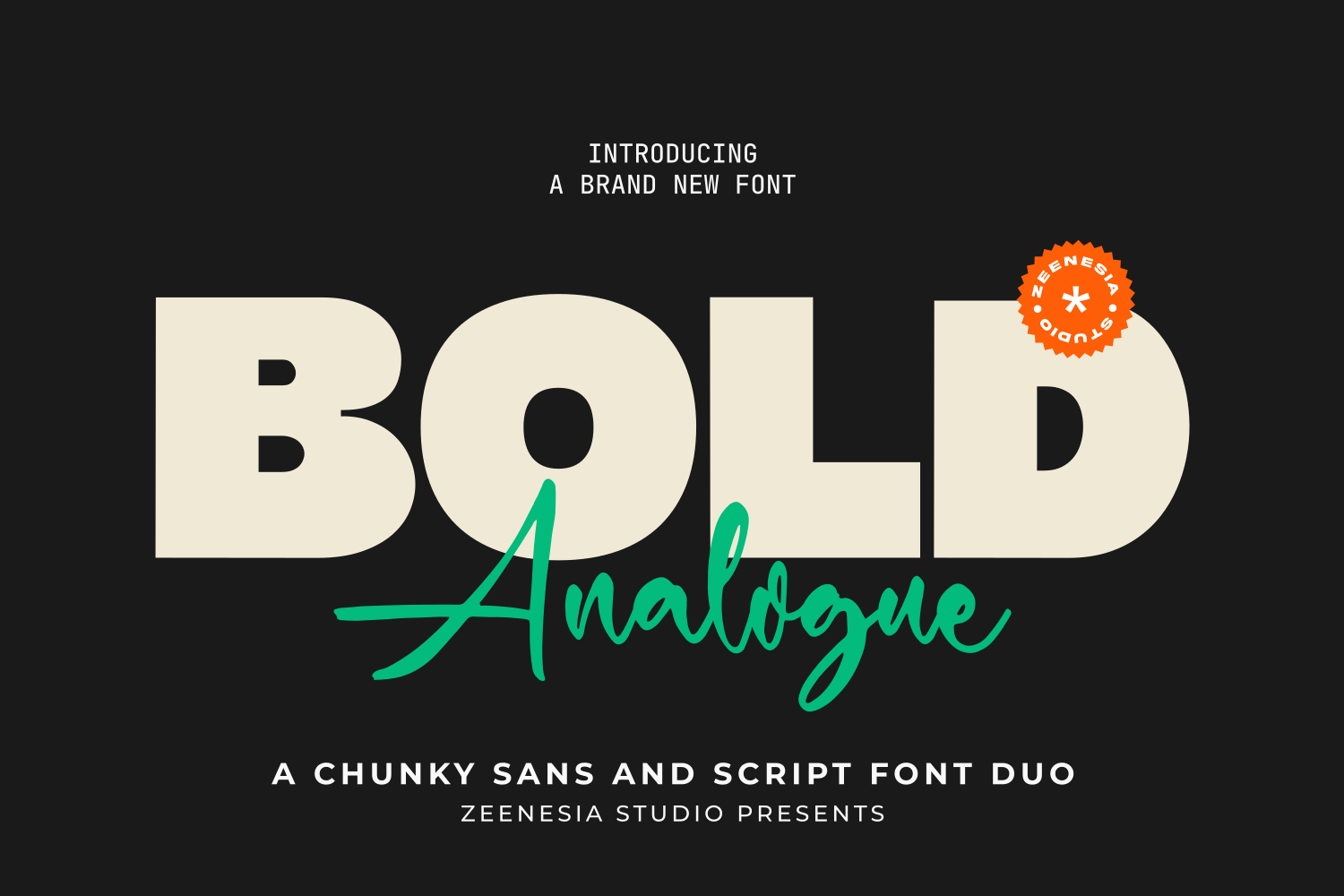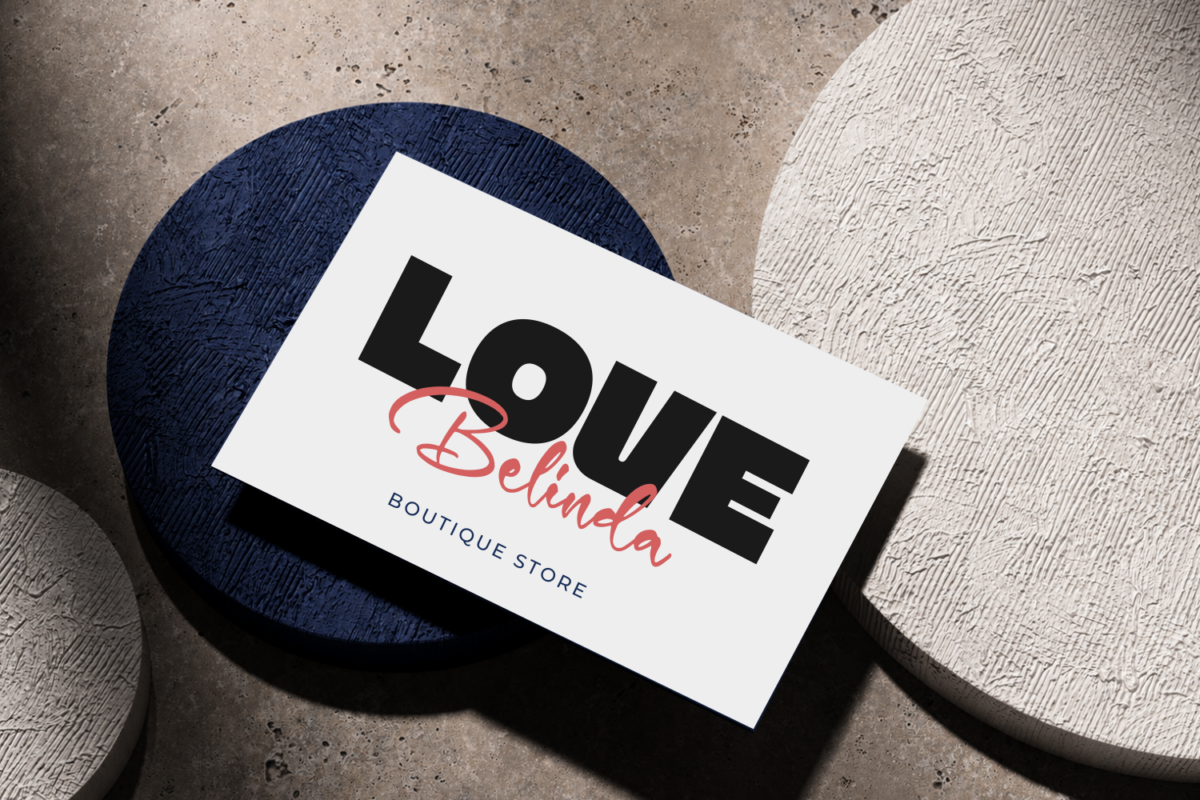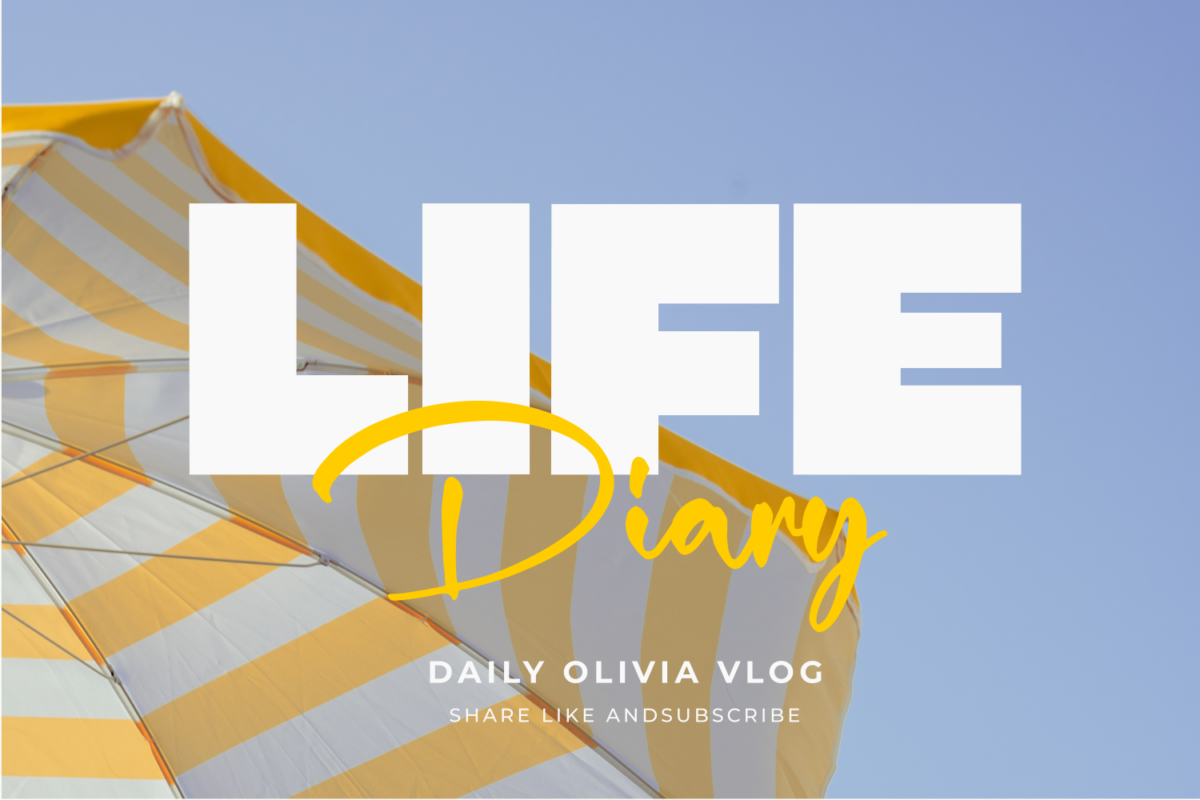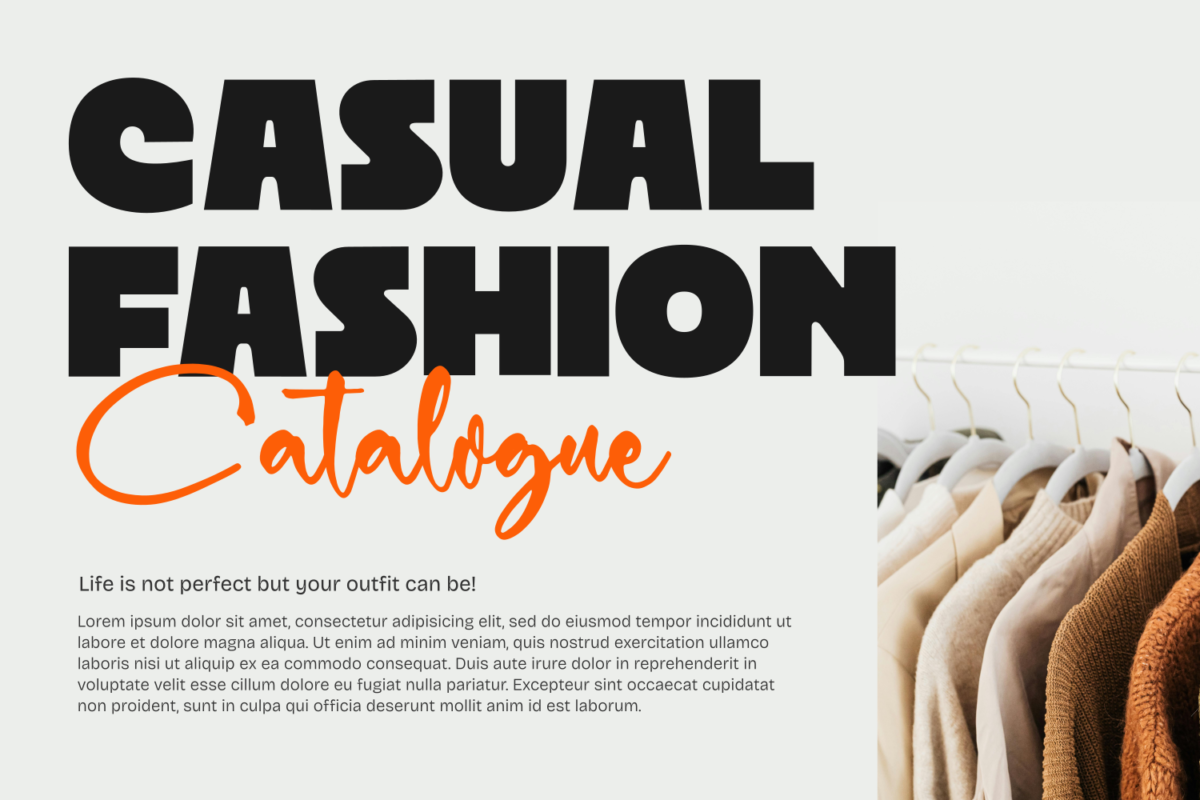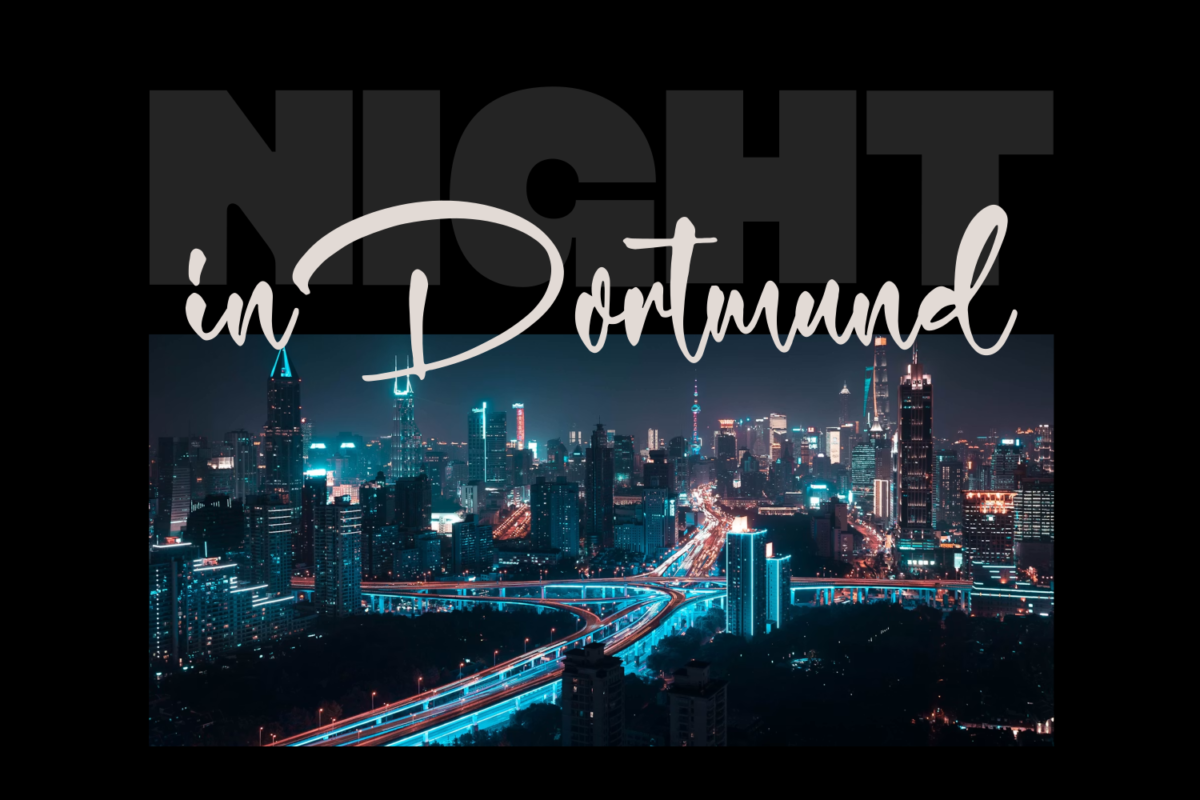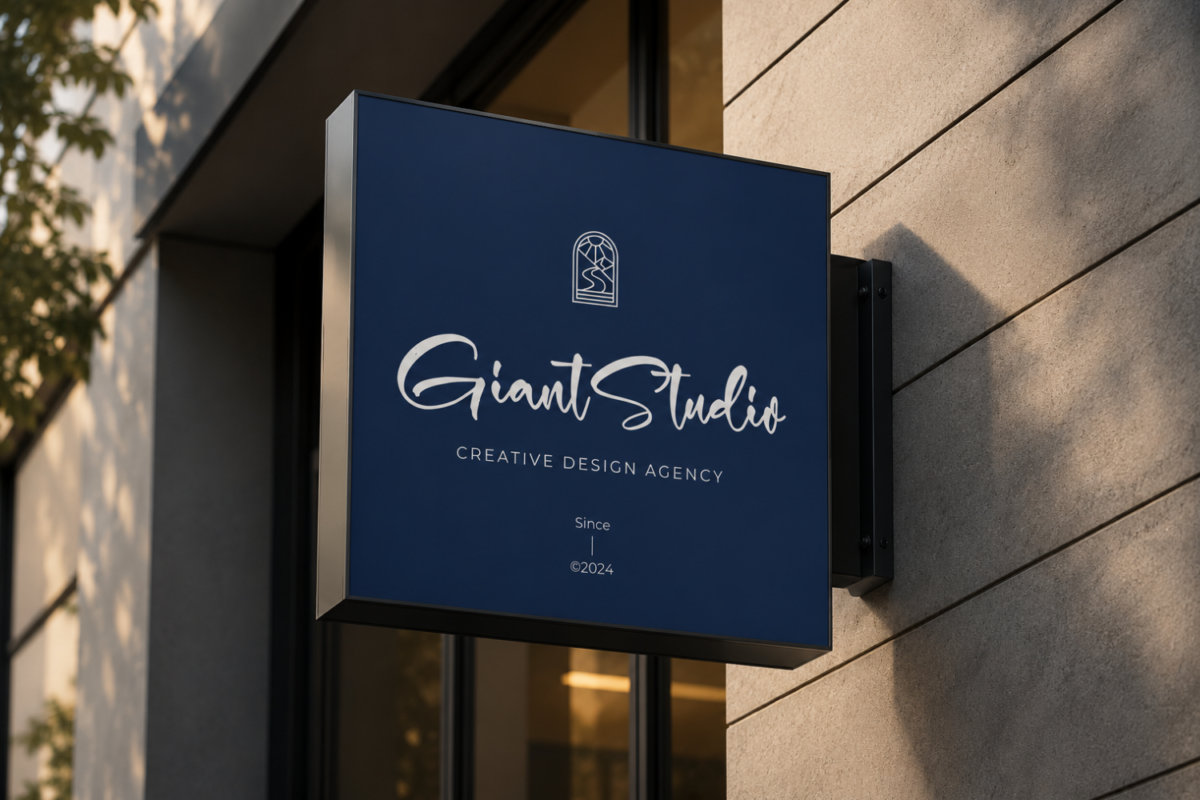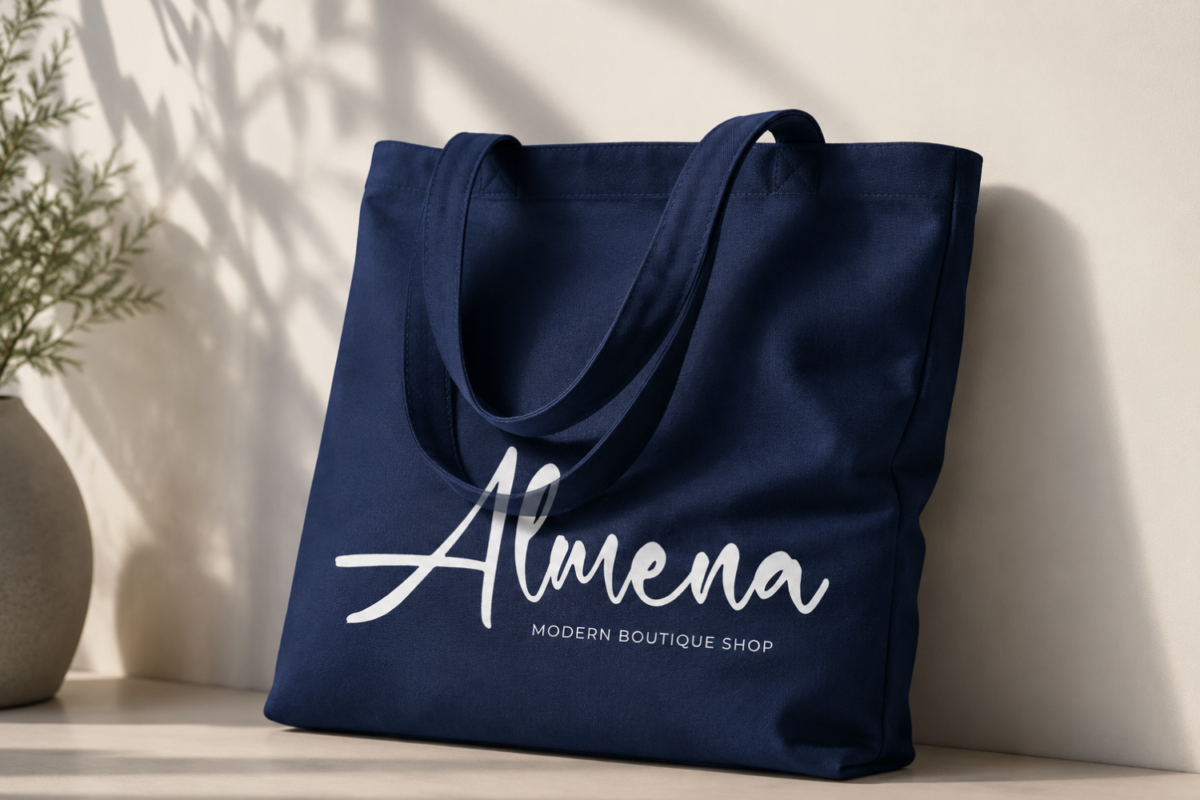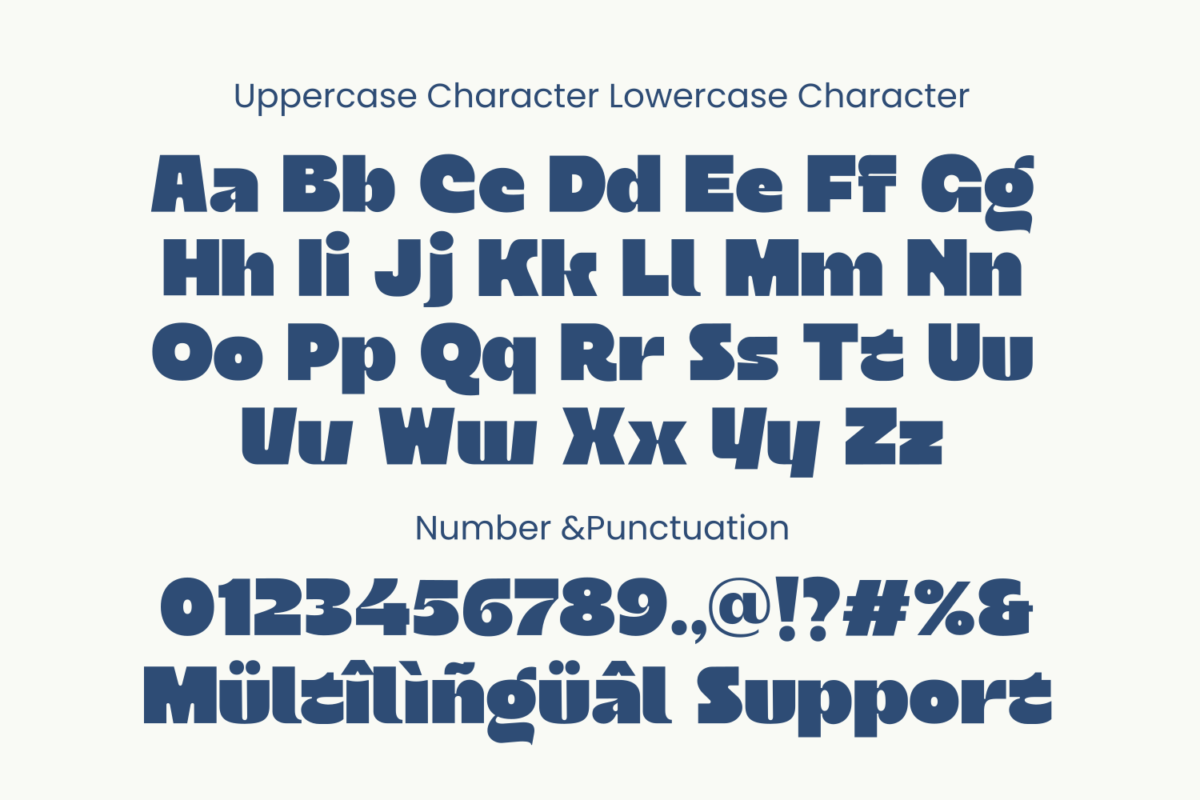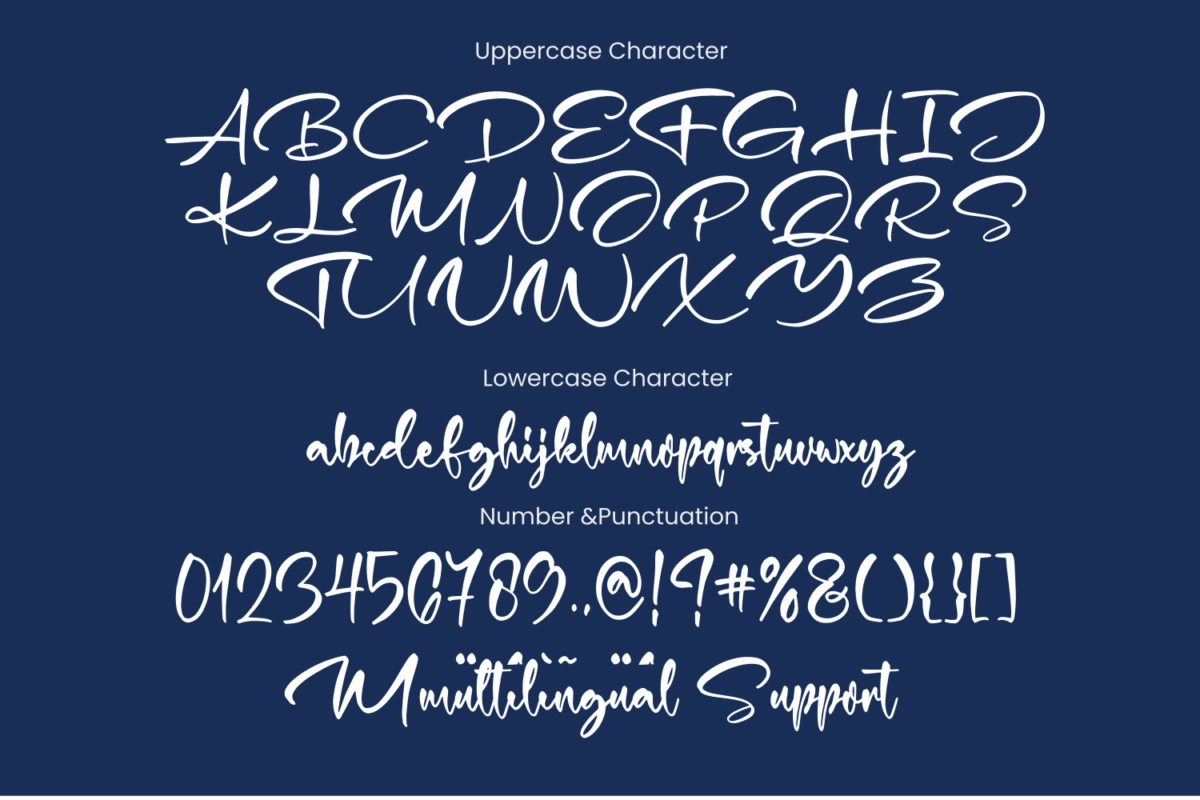
Bold Analogue Sans
Bold Analogue Script
Bold Analogue is a unique and expressive font duo that combines a bold, chunky sans serif with a smooth and playful handwritten script.
The bold sans serif brings a strong, confident, and modern personality, while the handwritten script adds a natural, energetic, and personal touch. Together, they create a striking contrast that makes your typography feel bold, creative, and full of character.
Perfect for logos, branding, packaging, posters, headlines, social media, merchandise, advertising, editorial designs, and many other creative projects.
Whether you’re creating a bold modern identity or a fun and expressive visual campaign, Bold Analogue gives you the flexibility to create eye-catching typography with a unique personality.